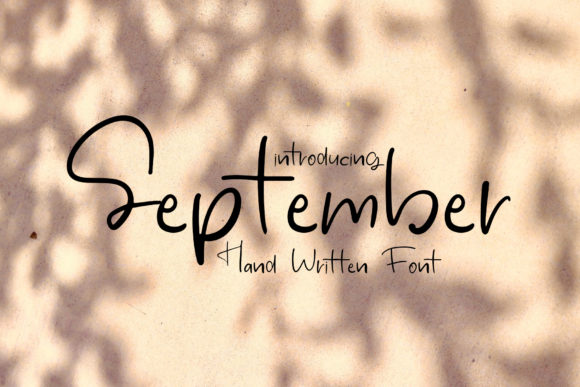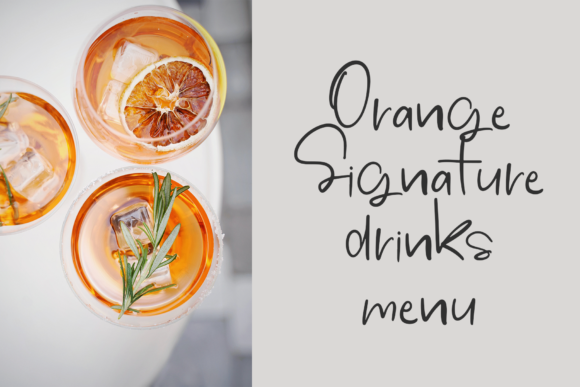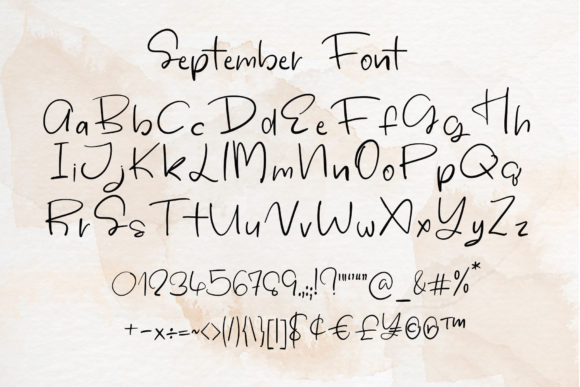
About September Font
September is a delightful and delicate handwritten font that exudes sweetness and charm. Fall in love with its elegant and captivating style, and elevate your projects to new heights. This font brings a touch of whimsy and sophistication, making it a perfect choice for a wide range of creative endeavors.
The allure of September font lies in its charming and dainty handwritten style. Each letter is meticulously crafted with graceful curves and delicate strokes, creating an aesthetic that is both enchanting and delightful. Its playful and whimsical characters add a touch of personality and elegance to any design, capturing the hearts of viewers.
With September font, you can infuse your projects with a sense of joy and creativity. Its unique and captivating design makes it a versatile choice for various applications, including branding, product packaging, invitations, quotes, and more. Let September font bring a touch of whimsy and sophistication to your designs, captivating your audience and leaving a lasting impression.
Branding materials come to life with the sweet charm of September font. Its delicate and elegant letterforms enhance the overall look and feel of your brand, adding a sense of authenticity and creativity. Whether you’re designing a logo for a boutique business, a handmade product line, or a whimsical brand identity, September font adds a touch of charm and uniqueness, setting your brand apart from the competition.
Product packaging also benefits from the dainty nature of September font. Its playful and enchanting characters bring a sense of joy and creativity to your packaging design, making it visually appealing and memorable. Whether you’re designing labels, tags, or product descriptions, September font adds a delightful and whimsical touch, enhancing the overall appeal of your products.
Moreover, September font’s versatility allows it to be used in various design contexts. Its sweet and dainty letterforms make it suitable for a wide range of projects, including invitations, quotes, posters, social media graphics, and more. Let your creativity flourish and explore the possibilities of September font in bringing a unique and personalized touch to your designs.
In summary, September is a sweet and dainty handwritten font that brings a touch of whimsy and sophistication to your designs. Its versatility makes it suitable for branding, product packaging, invitations, quotes, and more. With September font, you can create visually appealing designs that evoke joy, spark creativity, and leave a lasting impression on your audience.